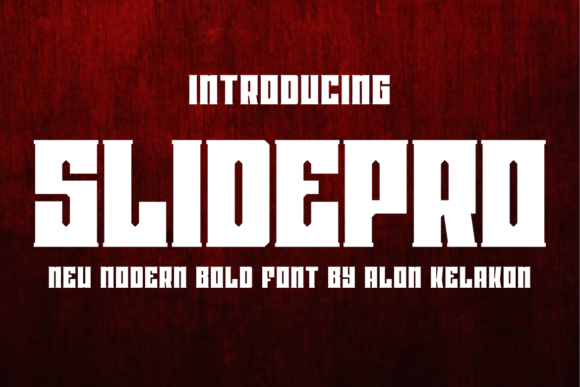
Unleash your creativity with Slidepro Font, the ultimate display font family that will make your designs shine like a diamond. Dive into a world of modern aesthetics and create captivating visuals that leave a lasting impression.
Express your individuality through eye-catching labeling, trendy clothing, cinematic movie screens, vibrant posters, movie titles that demand attention, electrifying gigs, stunning album covers, and logos that exude professionalism. Let Slidepro Font be your artistic companion, guiding you towards design excellence.
Whether you're a seasoned designer or just starting your artistic journey, Slidepro Font is effortlessly easy to use. Carve your unique style effortlessly, leaving a trail of unforgettable designs wherever you go.